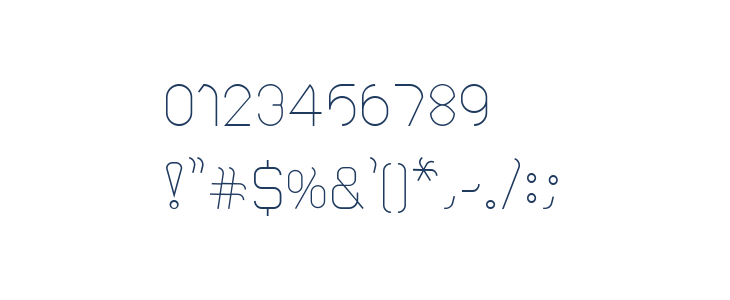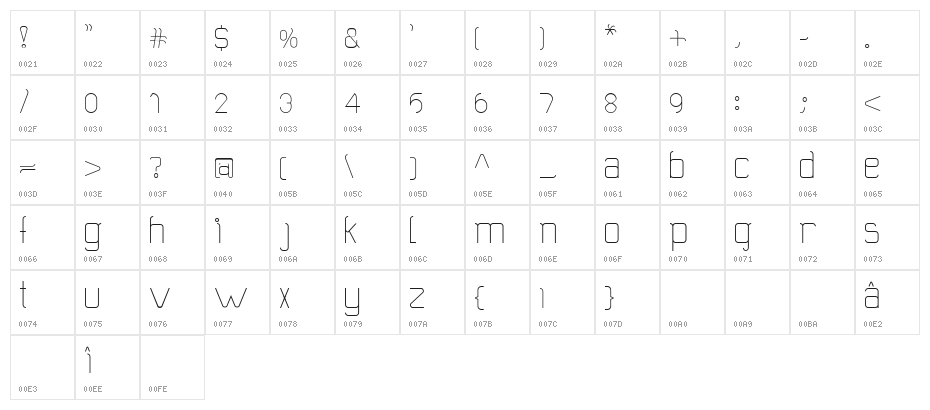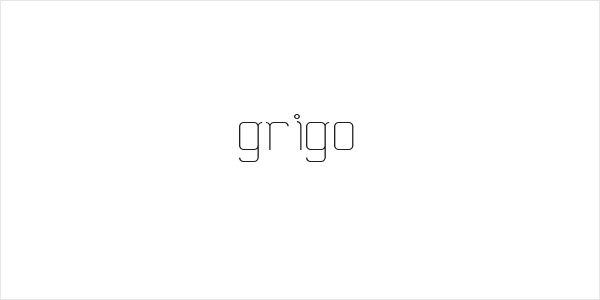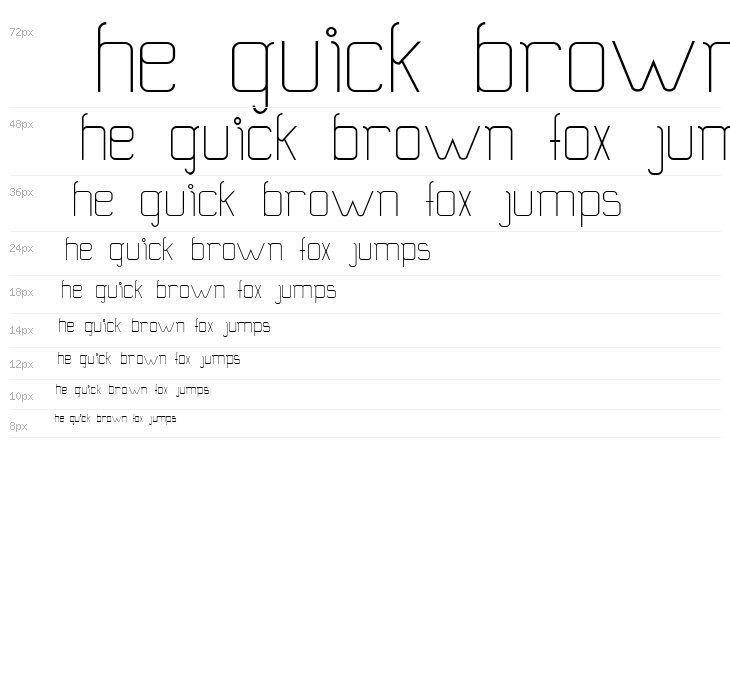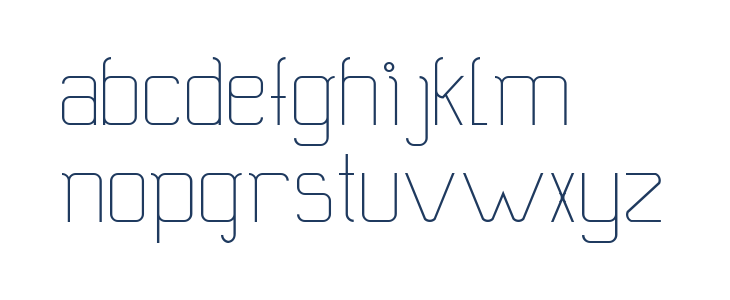
grigo Font
grigo Description
This font features a minimalist and geometric design with clean, linear strokes. The characters are composed of thin lines with rounded corners, giving it a modern and sleek appearance. The uniformity in line thickness across all characters contributes to a cohesive and balanced look. The lowercase letters maintain a consistent height, while the uppercase letters are slightly taller, adding a subtle hierarchy. The numerals and special characters follow the same design principles, ensuring a harmonious overall style. This font is well-suited for contemporary design projects that require a touch of elegance and simplicity.
| Use Case | Logos, Headlines, Web design |
| Proposed Projects | Ideal for modern branding, tech-related designs, minimalist posters, and clean web interfaces. |